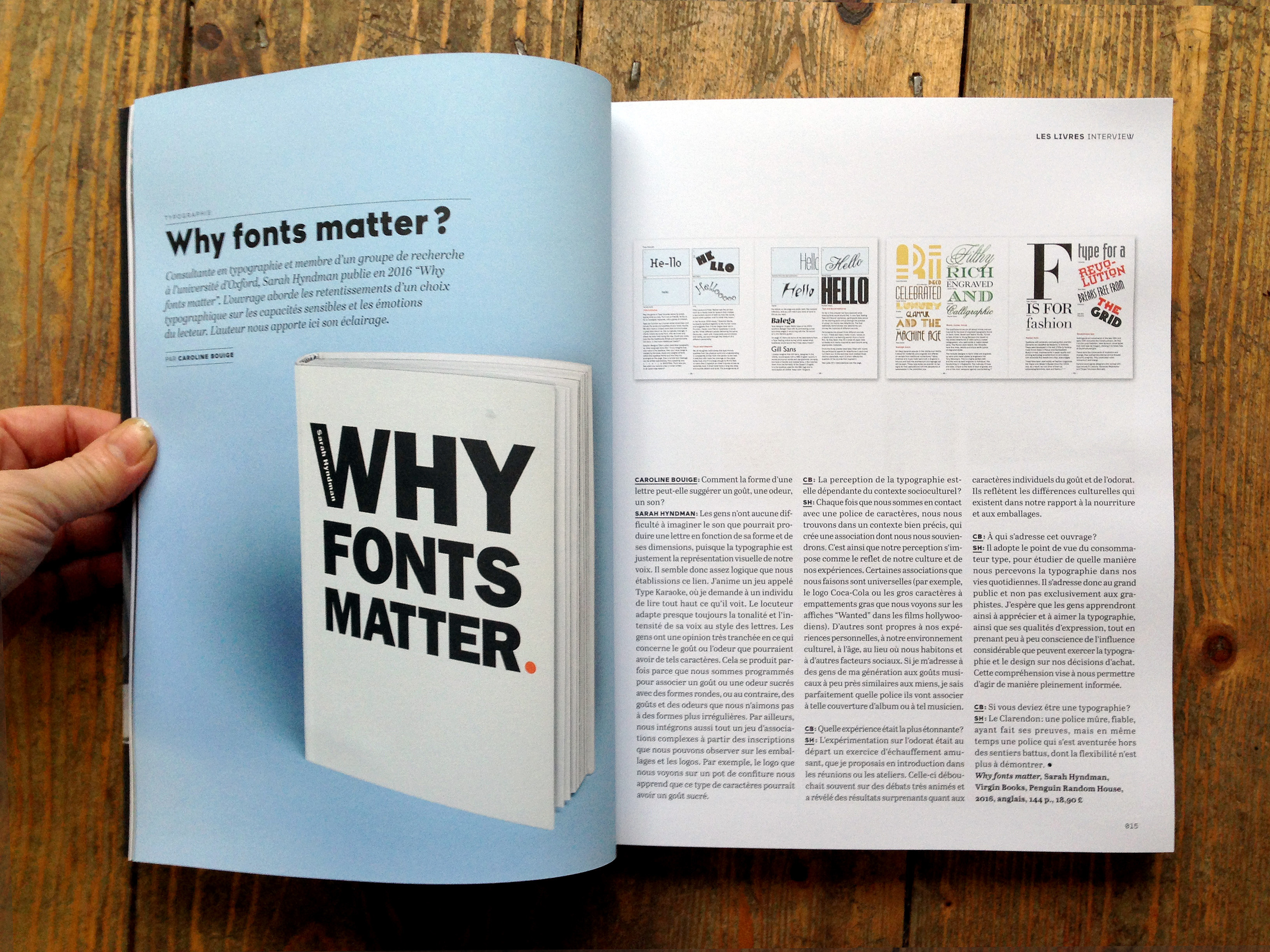
What’s your type of lover? CNN
In celebration of the official publication of Why Fonts Matter in the US today we’re looking back over articles and interviews that give a glimpse of the impression we’ve made on the world at large.
Jake Wallis Simons from CNN came to the Type Tasting studio and played a selection of Type Tasting Games. “As bizarre as it sounds, my job is to match up the bottles and fonts using only my sense of smell.”
What’s your type of lover? How fonts could help you find the perfect date
Sunday Brunch
I was delighted to be invited on to Channel 4’s Sunday Brunch yesterday (Sunday 7th February) to talk about my new book Why Fonts Matter and play some classic Type Tasting games. It was a fast-paced and fun 9 minutes. The aim had been to show that typography can be fun and accessible; that it doesn’t always have to be an intellectual discussion, and from the feedback on Twitter we achieved this. I demonstrated how type tells us how expensive or calorific a product might be. I talked about Simon choosing a typeface for his restaurant menus to convey that the chef is skilful (and discovered that he has an aversion to italics). We had a quick look at the Type Dating Game, before Tim and Simon both chose a typeface card and read out their own personality analysis. We ended with font sniffing: pairing the smells to the shapes of typefaces, and I explained why most people give very similar answers.
The Type Tasting props posing nicely with the Channel 4 logo in the background.
It’s Nice That ‘Why Fonts Matter, and how they impact your mood’
Typography might just help you date, solve obesity and impact your mood; so we’ve learnt from type fanatic Sarah Hyndman. We’ve previously dubbed her “the one woman tour-de-force behind the Type Tasting enterprise”, which looks at the power typography has over our lives and senses. She’s now published a new book on the subject, Why Fonts Matter, and has kindly offered us an extract looking at the effects of typography on our emotions.
“Physically, we use our voice, facial expressions. gestures and posture to convey a wide range of emotional cues from the subtle to the dramatic. Typefaces and the way they are used provide a similarly extensive emotional range typographically.”
AIGA: The World’s Most Expensive-looking Font Might Surprise You
The World’s Most Expensive-looking Font Might Surprise You
When you hear the word “luxury,” it’s easy to conjure up the colors gold, silver, and velvety purple; yet when it comes to typography, what we associate with wealth is less clear-cut. For the ancient Greeks, rare and precious purple ink came from sea snails found deep in the ocean, a dye so difficult to obtain it was reserved for kings. We don’t mine the sea for letters of the alphabet though, so what’s the typeface equivalent of purple ink, the fanciest looking font?
Talking fonts live on BBC Radio 4
Yesterday I was invited to be one of the guests on BBC Radio 4’s Saturday Live to talk about how we respond to typefaces. I took along some of the games that had gone down so well at the Pop-up Type Tasting at the V&A for the London Design Festival the previous weekend. Above is actor Sophie Thompson playing the ‘Feel Me’ game matching what she can feel to one of the fonts shown, if you came along to the event last weekend you know exactly which font she’s feeling from the expression on her face!
It was such an interesting programme to be on. Sophie is delightful and a pleasure to listen to, and I was excited to meet Peter Bleksley who is one of the hunters on ‘Hunted’ with the most amazing voice. It seems that we would all love the challenge of being on the next series and going on the run in an attempt to evade capture for 28 days. Third guest Trevor Lyttleton founded a charity which works with the elderly and we had a great chat afterwards about the power of typefaces on packaging to trigger nostalgia and bring back memories.